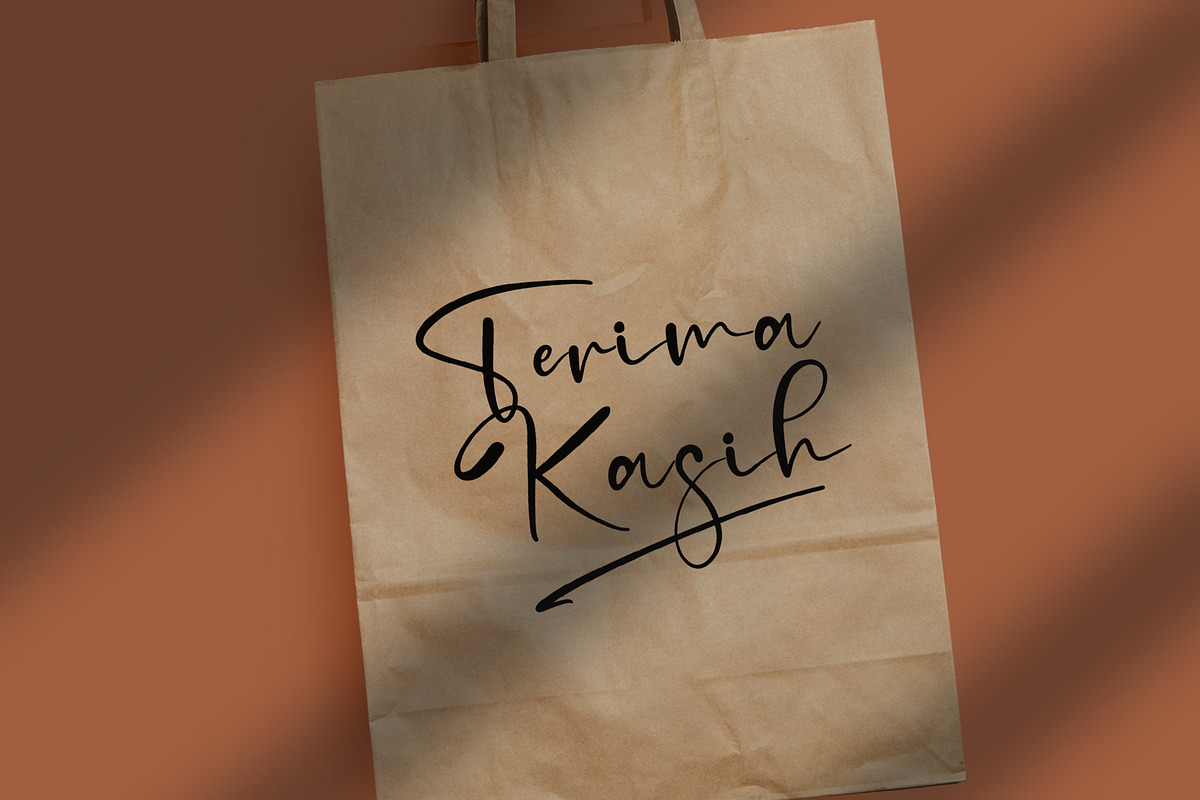
Pitchy Signature
Introducing new font by Wildan Type and Isolatype.
Pitchy Signature is a lovely and delicate script font that exudes elegance and class. This font was particularly crafted for those who need a beautiful and refreshing look to their designs. Pitchy Signature is PUA encoded which means you can access all of the glyphs and swashes with ease!